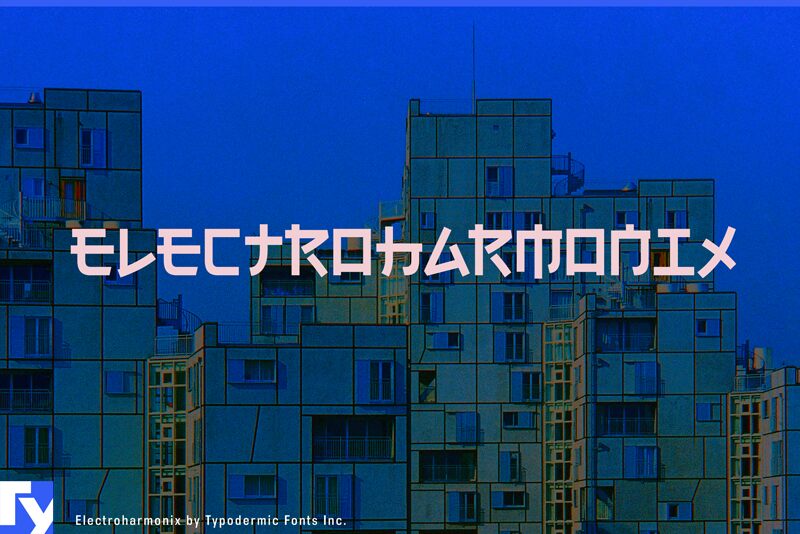
Electroharmonix-Regular
When I created Electroharmonix 13 years ago, I never dreamed that Id eventually move to Japan and have to learn to read and write Japanese. Now that I can read this stuff, I can see how badly I mangled those Japanese characters. Ive redrawn everything a little bolder with an attempt to at least sort-of follow the drawing rules of katakana and kanji. This time theres no hiragana mixed in; strictly katakana, and a few kanji. Of course, I still had to bend, flip and twist it to try to make it look like an alphabet. Ive given Electroharmonix better kerning, punctuation, math symbols, fractions and numeric ordinals. There are now 3 types of brackets. Double smart-quotes have been replaced with Japanese angle quotes. The long dashes have been replaced by double dashes they resemble a long equal sign. The asterisk is based on the kanji symbol for rice. The question mark now looks like a plain question mark because in Japanese, they often use the same question mark we do. The ellipsis is made of dots instead of rings: thats done on purpose.
Ray Larabie